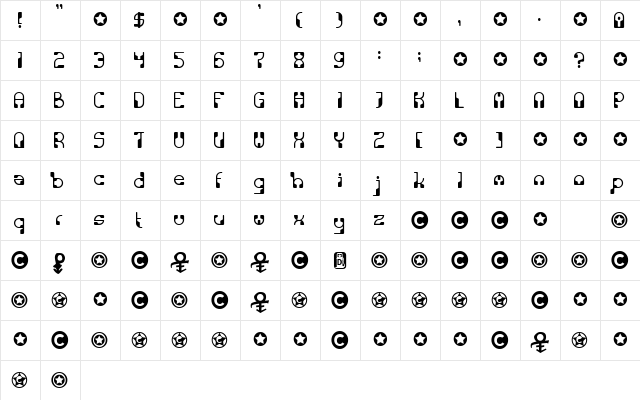
PhysicsBeta Regular
Design Context for PhysicsBeta Typeface
PhysicsBeta is a composed and adaptable typeface that performs quietly and consistently across a wide range of design contexts.